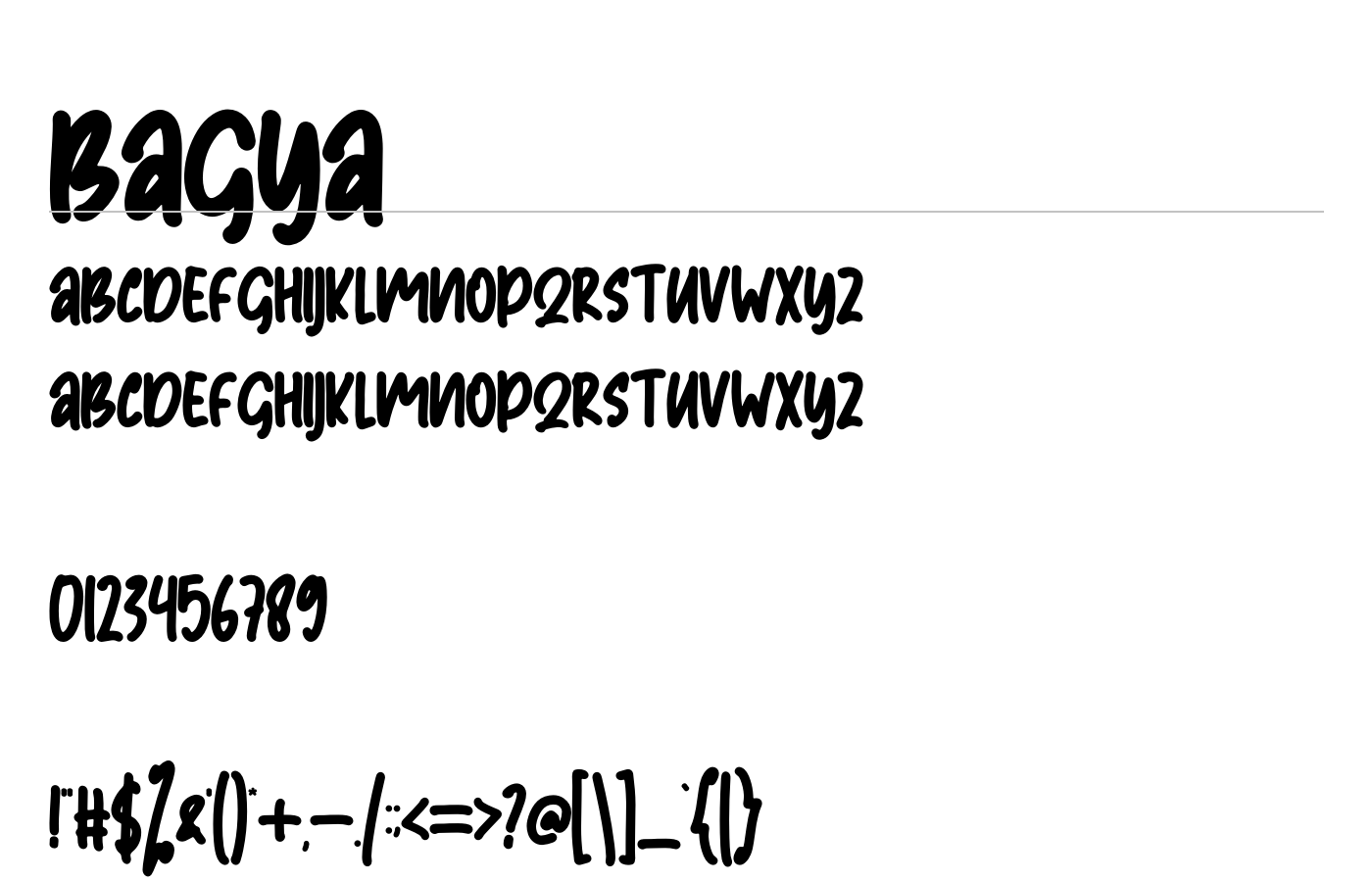
Bagya is a bold, playful handwritten font with a casual and friendly feel. Its thick, rounded strokes and slightly condensed letterforms create an inviting, energetic look perfect for informal branding, creative projects, and eye-catching headlines. This font works well in designs that aim to convey warmth and approachability while maintaining clear legibility.
Bagya Font